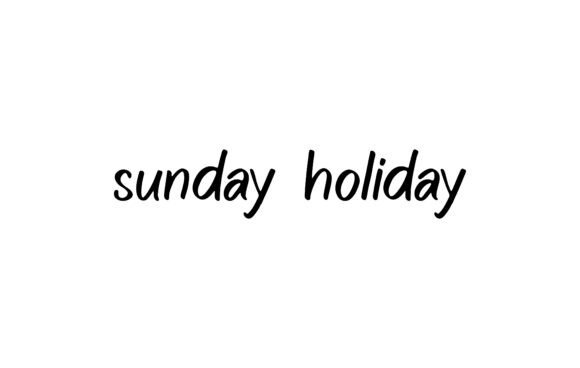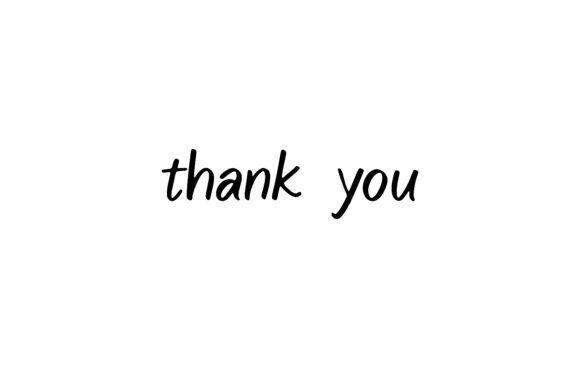
Introducing Albatross Font: The Ultimate Handwritten Font for Creative Projects
Are you tired of using the same old fonts for your creative projects? Look no further than the Albatross Font, a beautiful and authentic handwritten font that adds a romantic touch to any design. Expertly crafted to be a true favorite among designers and crafters, this font has the potential to take your creative ideas to new heights.
What Makes Albatross Font Special?
Albatross Font is a versatile and legible font that looks great as both title and body text. Its unique handwritten style gives it a personal and emotive feel, making it perfect for a wide range of design projects. Whether you’re creating magazine headlines, social media graphics, branding materials, wedding invitations, or cards, this font is sure to impress.
Key Features of Albatross Font
- Authentic Handwritten Style: Albatross Font boasts an authentic handwritten style that adds a touch of personality to any design.
- Romantic Touch: The font’s romantic touch makes it perfect for designs that require a sense of elegance and sophistication.
- Legible and Versatile: Albatross Font is highly legible and can be used as both title and body text, making it a versatile choice for designers.
- Wide Range of Uses: From magazine headlines to wedding invitations, this font can be used for a wide range of design projects.
Why Choose Albatross Font?
With so many fonts available, why choose Albatross Font? Here are just a few reasons why designers and crafters are falling in love with this beautiful font:
- Unique and Eye-Catching: Albatross Font is a unique and eye-catching font that will set your designs apart from the crowd.
- Easy to Read: The font’s legibility makes it easy to read, even at small sizes.
- Customizable: Albatross Font can be customized to fit your design needs, making it a versatile choice for any project.
- High-Quality Design: The font has been expertly designed to ensure high-quality results, even at large sizes.
How to Use Albatross Font in Your Designs
Albatross Font is easy to use in a variety of design projects. Here are a few ideas to get you started:
- Magazine Headlines: Use Albatross Font to create eye-catching headlines for your magazine or blog.
- Social Media Graphics: Add a touch of personality to your social media graphics with this beautiful font.
- Branding Materials: Use Albatross Font to create custom branding materials, such as business cards and letterheads.
- Wedding Invitations: Add a touch of romance to your wedding invitations with this beautiful handwritten font.
- Cards and Stationery: Use Albatross Font to create custom cards and stationery for any occasion.
In conclusion, Albatross Font is a beautiful and versatile handwritten font that is perfect for designers and crafters looking to add a touch of personality to their designs. With its authentic handwritten style, romantic touch, and legibility, this font is sure to become a favorite among creative professionals. Whether you’re creating magazine headlines, social media graphics, or wedding invitations, Albatross Font is the perfect choice for any design project.